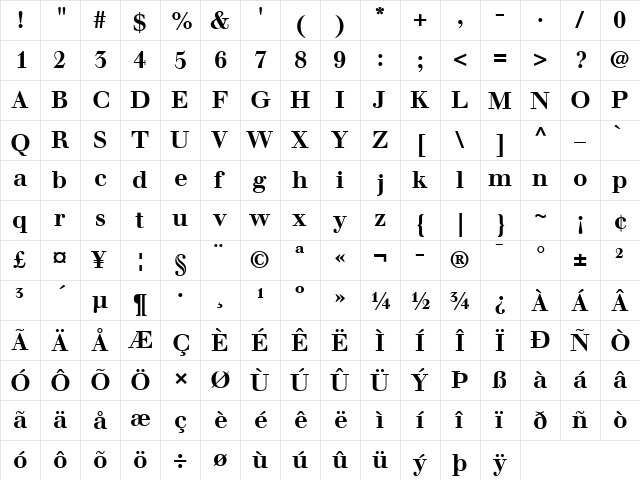
Walbaum LT Roman Bold
Design Context for Walbaum LT Roman Typeface
Walbaum LT Roman is a composed and adaptable typeface that performs quietly and consistently across a wide range of design contexts. Its bold stroke weight gives it real presence on the page.
Pro Tip: Use Walbaum LT Roman in both headline and body roles to test its range before committing to a single application.